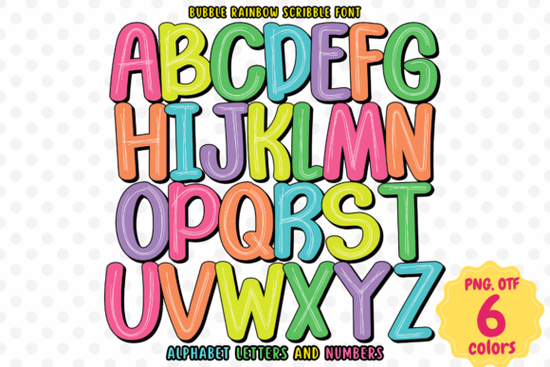
Looking for a font that's as fun and colorful as a kids' birthday party? The Bubble Rainbow Scribble font is a handwritten typeface that mixes playful bubble letters with a loose scribble texture all in bright rainbow colors. It's built as an OpenType-SVG color font, meaning the color is baked right into the letterforms. You don't need to add effects or layer styles to get that vibrant look.
What Can You Use the Bubble Rainbow Scribble Font For?
This font works well for any project where you want a lighthearted, eye-catching result. Here are some common uses:
- Children's book covers and interior chapter titles
- Birthday party invitations and event decorations
- Greeting cards and thank-you notes
- Posters and flyers for kids' events or school activities
- T-shirt designs for print-on-demand shops
- Social media graphics and YouTube thumbnails
- Scrapbooking and DIY craft projects
If you sell on Etsy, Redbubble, or other POD platforms, a colorful display font like this can help your products stand out. Pair it with simple backgrounds and let the lettering carry the design.
How Is a Color Font Different From a Regular Font?
A standard font file uses single-color vector outlines. You pick the typeface, choose a color, and type. A color font specifically an OpenType-SVG font stores full-color information inside the file itself. Each letter can have gradients, textures, and multiple colors built in.
That means you get the rainbow scribble effect automatically. The trade-off is that not every program supports these files, which is why checking compatibility before purchasing matters.
How Do You Get the Best Results With This Font?
After working with color fonts on various projects, here are a few practical tips:
- Use a large font size. Color fonts show their detail best at bigger sizes. At small sizes, the texture and color blends can look muddy or unclear.
- Keep backgrounds simple. A busy background will compete with the colorful lettering. Solid colors or very subtle patterns tend to work best.
- Check your export settings. For print projects, make sure your resolution is set to at least 300 DPI to keep the font crisp.
- Test before committing. Type out your full text first and check that letter spacing and readability work for your layout.
- Pair it with a clean sans-serif. For any body text or supporting copy, use something simple so the display font remains the focal point.
Is This Font a Good Fit for Your Project?
Bubble Rainbow Scribble is well suited for:
- Small business owners creating promotional materials for family-friendly or kids' brands
- Print-on-demand sellers looking for distinctive typography on children's products
- Crafters and hobbyists making party supplies, scrapbook pages, or classroom decorations
- Graphic designers who need a playful display typeface for client work
Keep in mind that this is a display font, not a body text font. It's meant for headlines, titles, and short phrases where personality matters more than readability at small sizes.
- ✅ Plan to use it at larger sizes (posters, headers, cards) for the best look
- ✅ Pair it with a simple secondary font for any supporting text